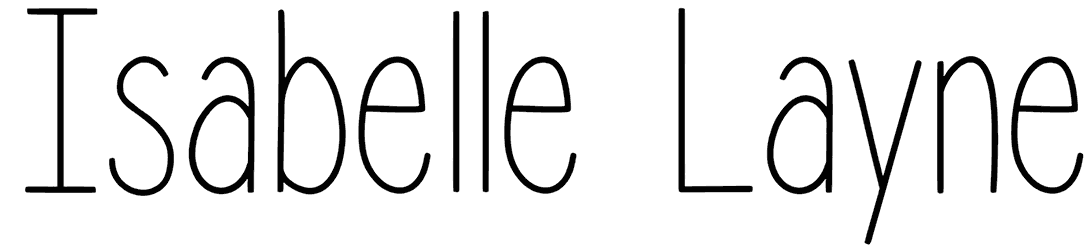
Isabelle Layne Font
Having a stylish handwritten font at your disposal, such as Isabelle Layne, which offers all the characters in two weights, will be an enormous help in creating a design that appeals to the widest possible audience.
This simple font, with its tall and thin look, works equally well with serious and lighthearted topics. Why are you pausing? Whether you’re making business cards, advertisements for beauty products, clothing designs, or anything else, Isabelle Layne’s beautiful face letter is sure to wow.